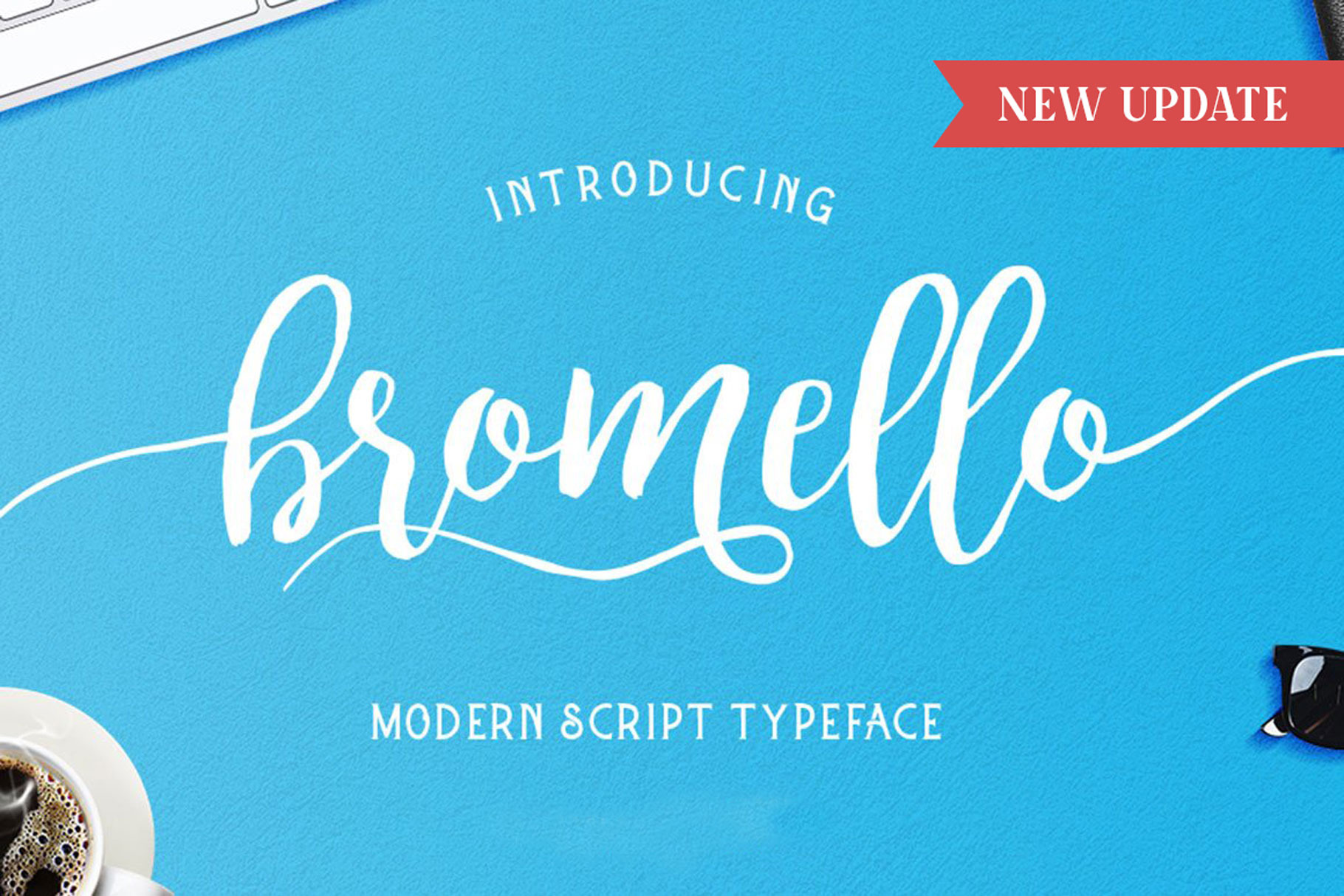
bromello typeface
introducing bromello modern script typeface, using style hand made with brushing. bromello a beautiful for wedding card design, logotype, website header, fashion design and any more.
- Character Set A-Z
- Contextual Alternates